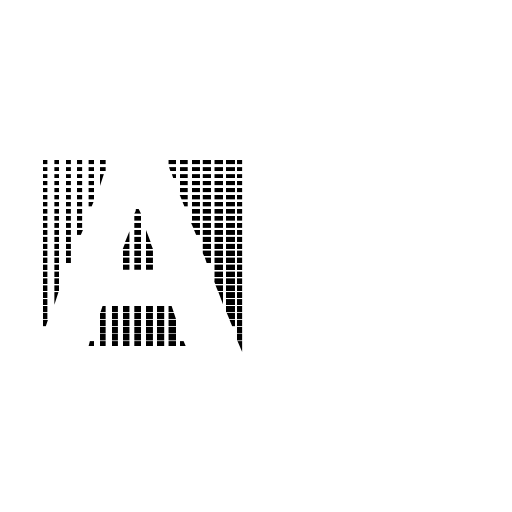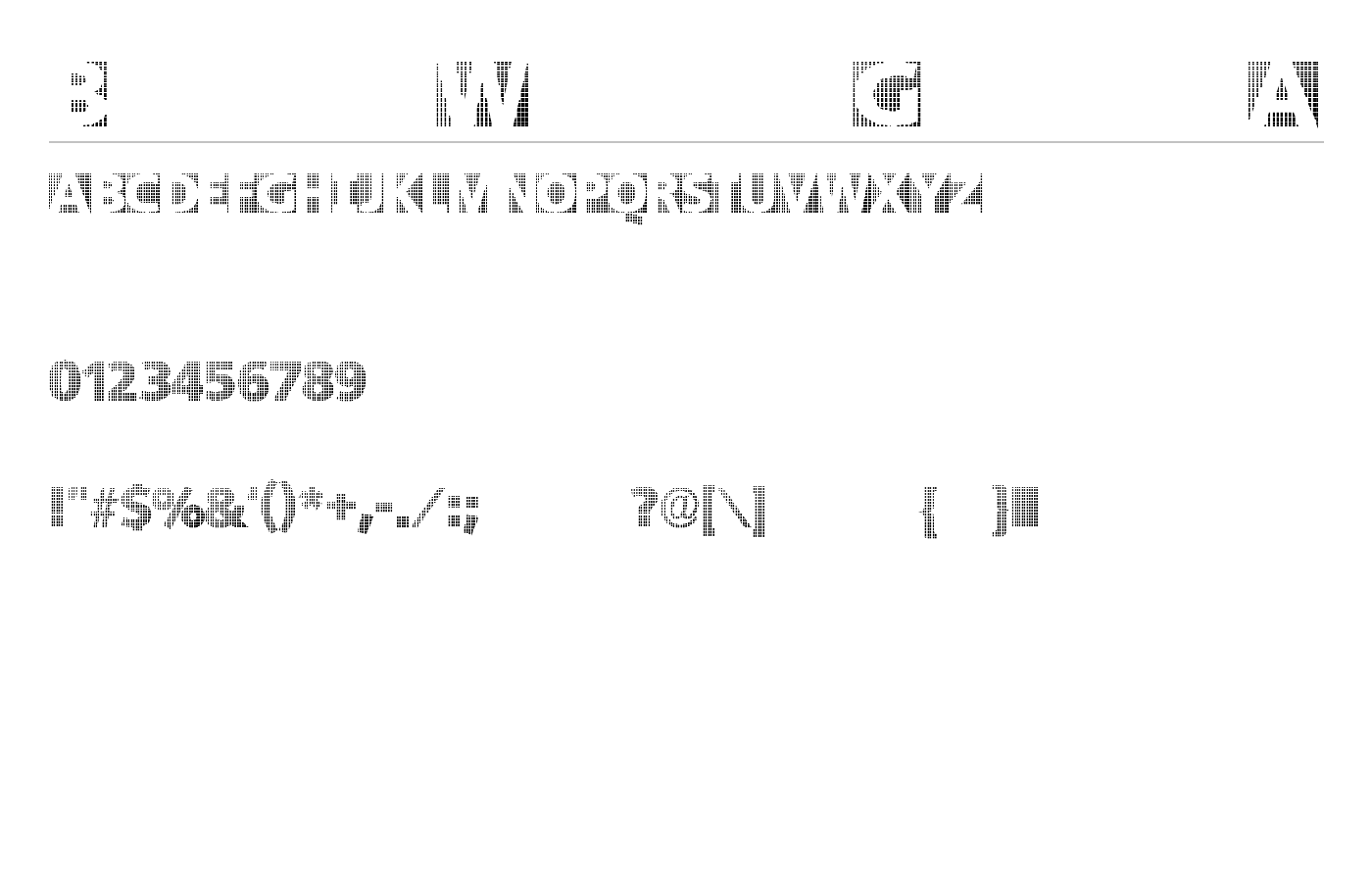
BlackWhiteGridsA is a bold, geometric sans serif font characterized by its unique grid-like dot pattern that defines each letterform with striking visual texture. Its uppercase-only style and high contrast created through dot density give it a modern, digital aesthetic perfect for eye-catching headlines, posters, and branding that seeks a futuristic or tech-inspired vibe. This font excels in display use where its distinctive pattern can command attention and add a layer of complexity to minimalist designs.
BlackWhiteGridsA Font
About BlackWhiteGridsA Font